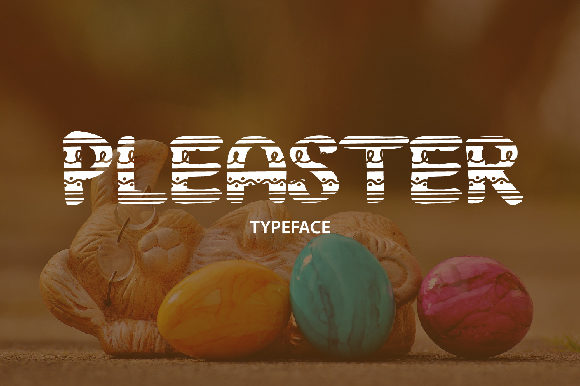
**Introducing Pleaster: The Font That Will Spark Joy In Your Designs!**
Are you tired of using the same old boring fonts that lack personality and fail to captivate your audience? It's time to unleash your creativity with Pleaster, an uppercase display font that exudes cheerfulness and adds a playful touch to any design project!
Crafted by the talented da_only_aan, Pleaster is a true masterpiece that will elevate your designs to new heights. Its distinctive character and cheerful aura make it the perfect choice for adding a touch of whimsy and fun to your projects. Whether you're creating eye-catching social media posts, designing invitations for special occasions, or adding a personal touch to your website, Pleaster is the font that will make your designs stand out from the crowd.
Imagine the impact your designs will have when infused with the playful charm of Pleaster. Your social media posts will become more engaging, your invitations will evoke delight, and your website will exude a warm and inviting atmosphere. With Pleaster, you'll have a secret weapon to capture attention and create designs that resonate with your audience on an emotional level.
Don't settle for ordinary fonts that blend into the background. Embrace the power of Pleaster and watch your designs transform into captivating creations that evoke joy and leave a lasting impression.
**Here's Why Pleaster Is the Perfect Choice for Your Next Project:**
* Its cheerful personality adds a unique and memorable touch to your designs.
* The uppercase characters make it perfect for headlines, titles, and other attention-grabbing elements.
* It's versatile enough to complement a wide range of design styles, from playful and whimsical to elegant and sophisticated.
* The clean and crisp lines ensure readability, even at smaller sizes.